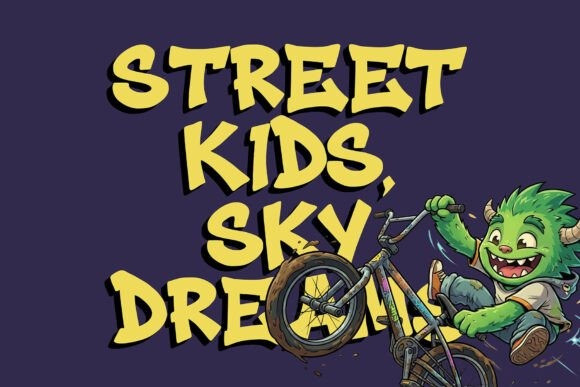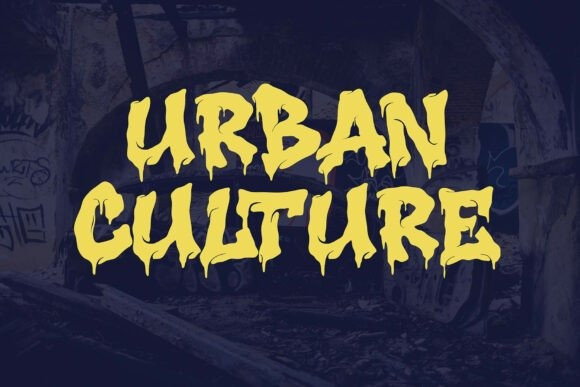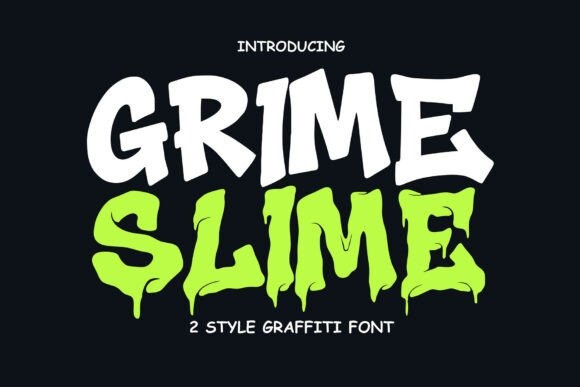
Grime Slime Font
Grime Slime Font Cikareotype’s rugged, melting graffiti font that encapsulates the untamed spirit of the urban jungle.With its inspiration firmly rooted in underground graffiti culture, the macabre, and the grit of city streets, this typeface packs a fierce punch in any design scheme. The dripping, oozing aesthetic of every character channels a potent, almost toxic energy, while retaining its rebellious street sophistication.
Grime Slime flaunts character deformities with pride. Its swaying edges, fluid drips, and organic morphing mimic slime trails, creating a wild, yet readable spectacle. Perfect for headlining or making an audacious statement, the font’s fierce visual rhythm commands attention.
Ideal for urban-centric branding, this font comes alive on streetwear, skate, and BMX graphics, music album covers, horror posters, game visuals, YouTube thumbnails, Twitch overlays, and more. Its dystopian vibe effortlessly integrates with various themes – horror, subculture, post-apocalyptic artwork, or funky modern branding.
Featuring uppercase characters, numerals, and punctuation, Grime Slime offers design flexibility for a variety of layouts. Its striking slime effect remains undiminished whether splashed across a dark canvas or a bold color palette. It’s a go-to resource for designers crafting apparel, merchandise, posters, flyers, social media content, and digital branding.
As a grungy font choice, Grime Slime is audaciously expressive and unapologetically brash. It embodies the rebellious heartbeat of the streets, emitting a radiating aura of raw creativity. If you are targeting a font that injects your design with an explosive alleyway attitude and trend-setting street appeal, Grime Slime amplifies your creative voice, making your designs stand out in the crowd.